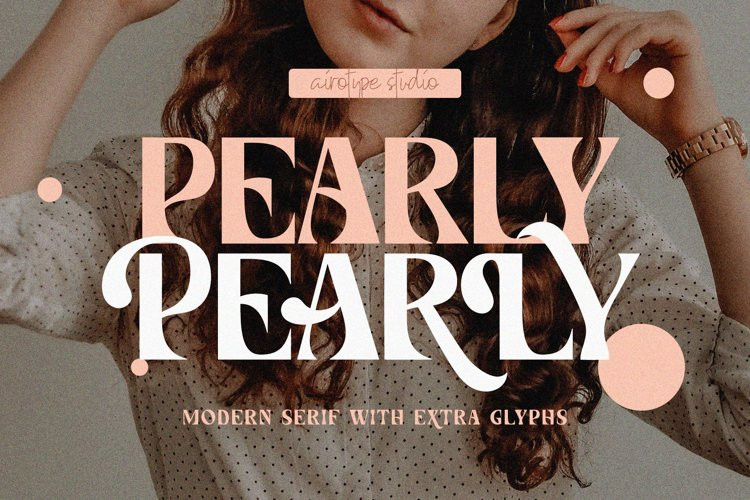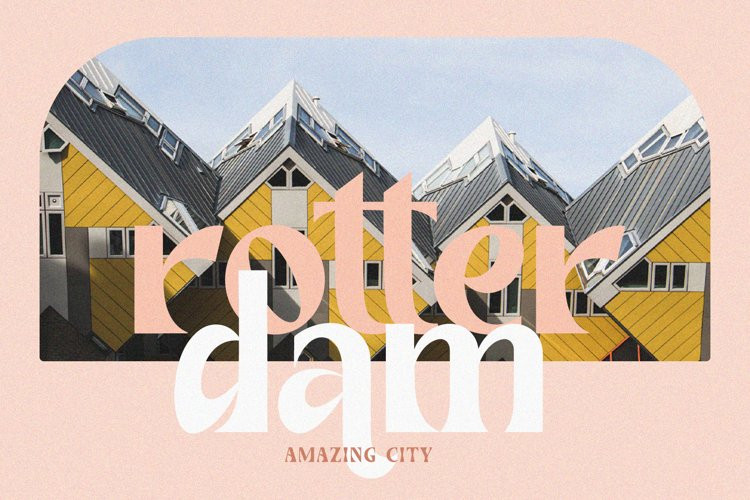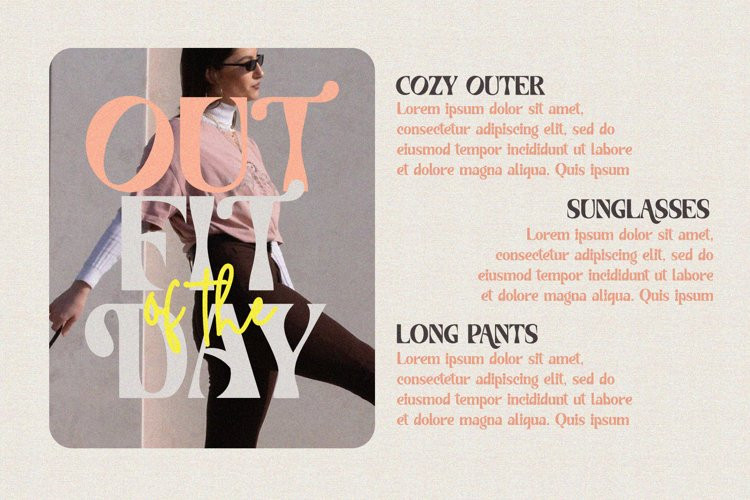
Pearly Font
Pearly FontPearly is modern serif font with thick and solid style. It has modern and vintage look.
Pearly has extra glyphs to give more options for crafters in designing. The extras will make design look more classy, elegant, quirky and edgy.
Pearly is suitable font for many projects, for modern or even retro vintage design, branding, logo, crafting, sticker, sublimation, wedding invitation, and many more.